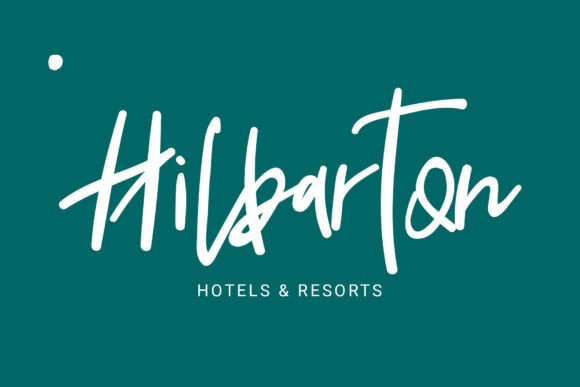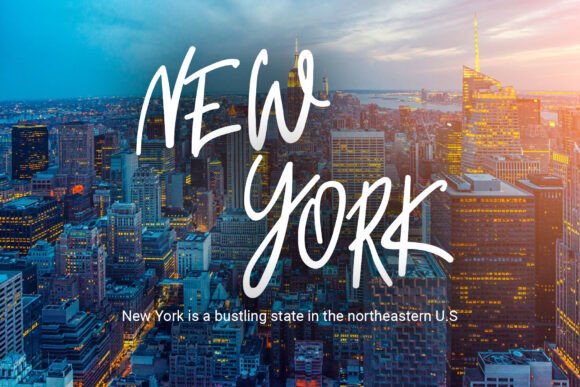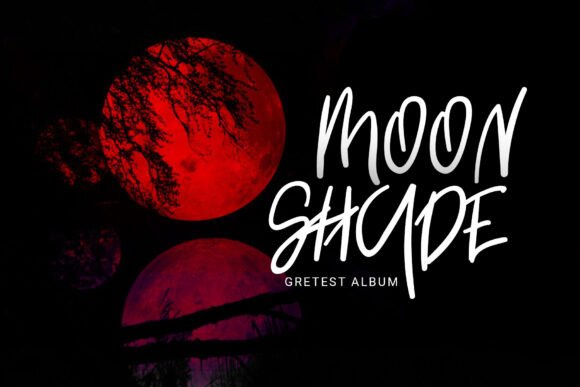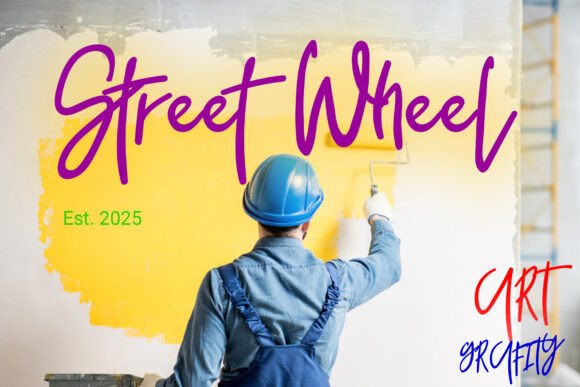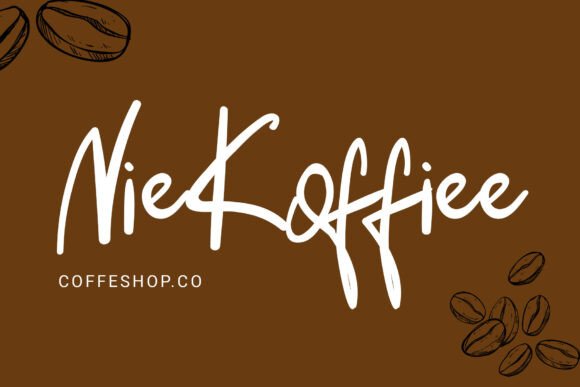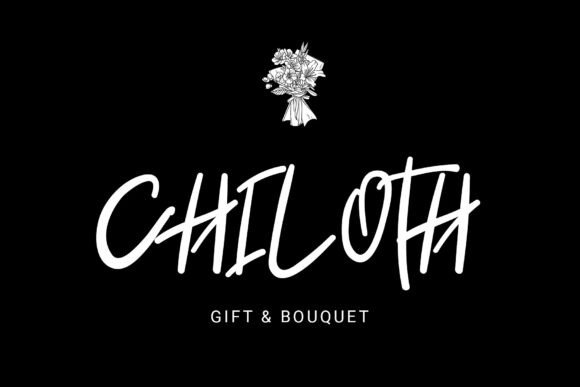
Cinta Pertama Font: Elevate Your Design with Authentic Handwritten Style
In the world of design, fonts play a crucial role in bringing a creative vision to life. Among the numerous font options available, handwritten fonts have gained immense popularity for their unique, personal touch. If you’re a designer or craftsperson looking to add a touch of authenticity to your projects, look no further than Cinta Pertama, a beautifully crafted handwritten font that is sure to make your designs stand out.
What is Cinta Pertama Font?
Cinta Pertama is a stunning handwritten font that embodies the essence of handmade characters. This font is meticulously designed to bring a sense of warmth, elegance, and sophistication to any design project. Whether you’re working on a logo, invitation, social media post, or product packaging, Cinta Pertama is the perfect choice for adding a personal touch.
Key Features of Cinta Pertama Font
- Authentic Handwritten Style: Cinta Pertama boasts an authentic handwritten style that is both modern and chic. Each character is carefully crafted to reflect the imperfections and uniqueness of handwriting.
- Handmade Characters: The font features handmade characters that add a touch of personality to your designs. The handmade elements ensure that your text doesn’t look too uniform or robotic.
- Versatile: Cinta Pertama is incredibly versatile and can be used for a wide range of design projects, including logotypes, titles, covers, branding, invitations, wedding designs, and more.
- Easy to Read: Despite its handwritten nature, Cinta Pertama is remarkably easy to read, making it suitable for both headings and body text.
Perfect for Creative Endeavors
Cinta Pertama is an excellent choice for designers and crafters who want to create modern, stylish designs. The font’s unique characteristics make it suitable for various creative endeavors, such as:
- Logotype and Branding: Use Cinta Pertama to create a memorable logo or brand identity that stands out from the crowd.
- Invitations and Wedding Designs: Add a touch of elegance and romance to your wedding invitations, save-the-date cards, and other event designs.
- Social Media Posts: Elevate your social media presence with eye-catching posts and stories that showcase your creativity.
- Product Packaging: Make your product packaging more appealing and distinctive with Cinta Pertama’s unique handwritten style.
Why Choose Cinta Pertama Font?
With so many fonts available, why should you choose Cinta Pertama? Here are a few compelling reasons:
- Unique and Authentic: Cinta Pertama offers a distinctive handwritten style that sets it apart from other fonts.
- High-Quality Design: The font is meticulously designed to ensure that it looks great in any design project.
- Multipurpose: The font’s versatility makes it suitable for a wide range of design projects.
Cinta Pertama is a beautiful handwritten font that can elevate your design projects to the next level. Its authentic, handmade style and versatility make it an excellent choice for designers and crafters who want to create modern, stylish designs. Whether you’re working on a logo, invitation, social media post, or product packaging, Cinta Pertama is sure to make your designs stand out. So why wait? Download Cinta Pertama today and experience the power of authentic handwritten typography.